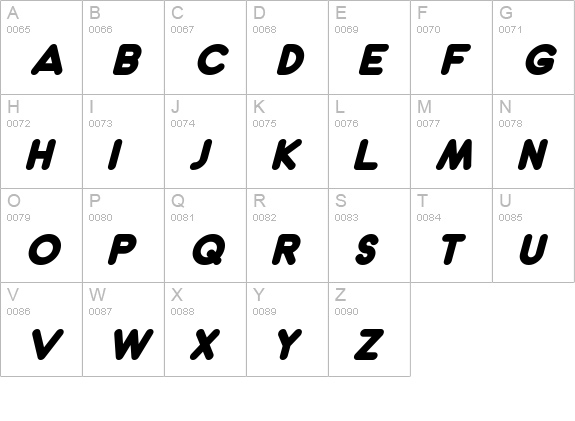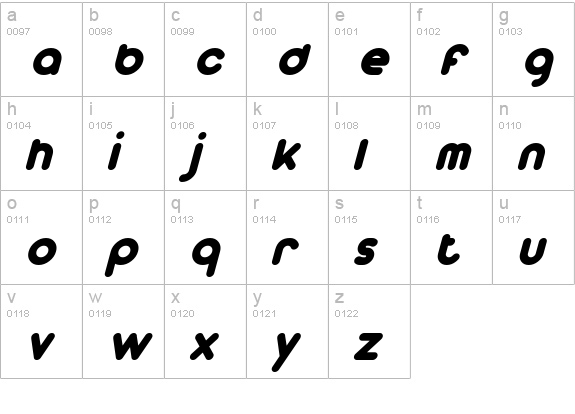
Dunkin Sans Italic Font Details
Dunkin Sans Italic is a distinctive, italic variant in the Dunkin typeface family \xE2\x80\x94 well suited to design and typography projects.
Dunkin Sans Italic font is a sleek and modern typeface that exudes elegance and sophistication. Its unique italicized design adds a touch of flair to any project, whether it's for print or digital media. With its clean lines and graceful curves, Dunkin Sans Italic font is perfect for adding emphasis to headings, titles, and subheadings. It effortlessly captures attention and guides the reader's eye through the text, creating a visually pleasing reading experience. What sets Dunkin Sans Italic font apart is that it is available for free. Yes, you read that right! This stunning font can be downloaded at absolutely no cost from FontsMarket.com. Now, you can enhance your designs without breaking the bank. Whether you're a professional designer or a hobbyist, Dunkin Sans Italic font offers versatility and flexibility. It pairs beautifully with both serif and sans-serif fonts, allowing you to create harmonious and visually appealing combinations. With its generous x-height and well-balanced proportions, Dunkin Sans Italic font ensures optimal legibility even at smaller sizes. This makes it ideal for body text in magazines, brochures, and websites. The italicized style of Dunkin Sans font adds a touch of sophistication to any project. It conveys a sense of elegance and refinement, making it perfect for high-end branding, invitations, and editorial designs. So why wait? Head over to FontsMarket.com today and download Dunkin Sans Italic font for free. It's time to elevate your designs and make a lasting impression with this visually stunning and versatile typeface.